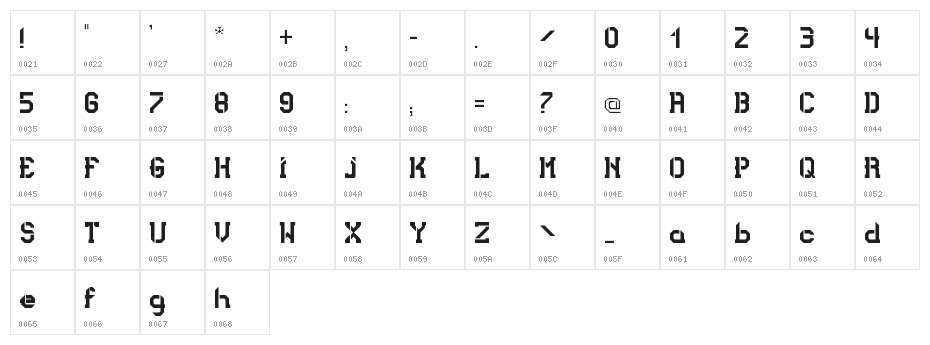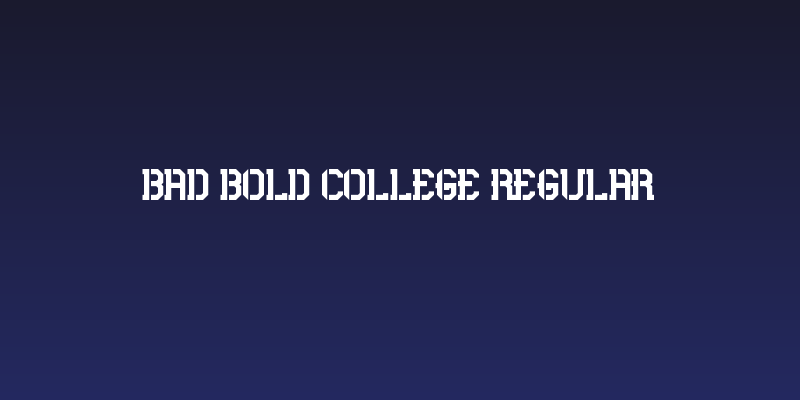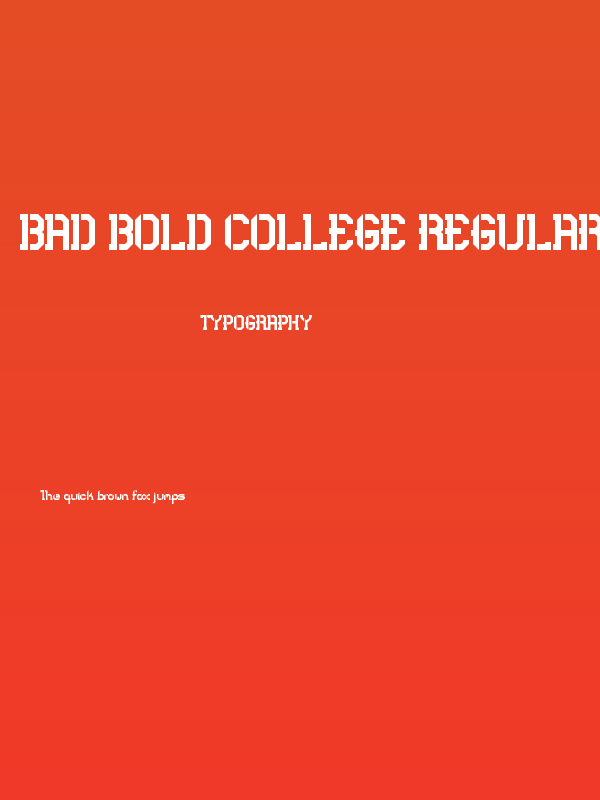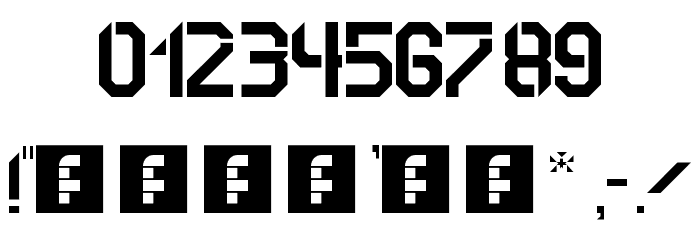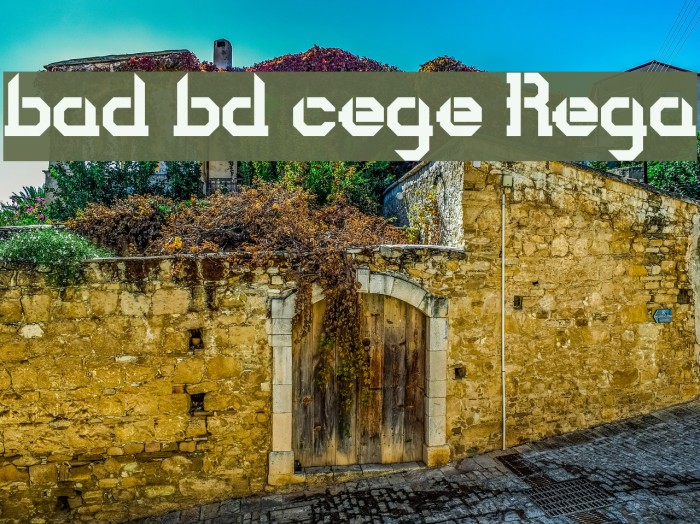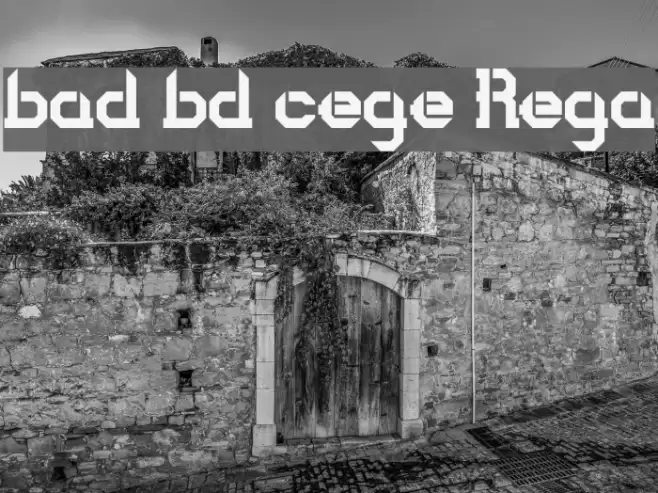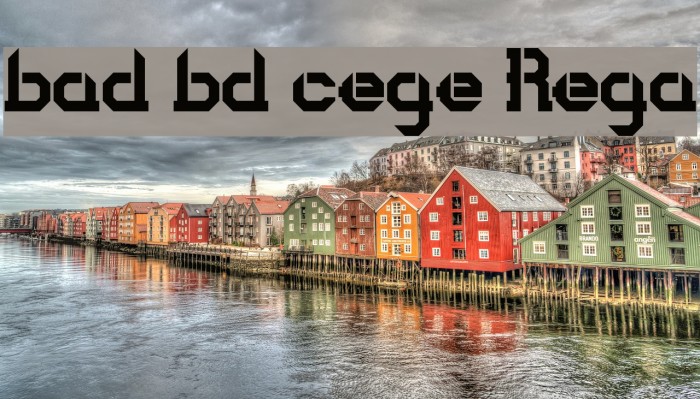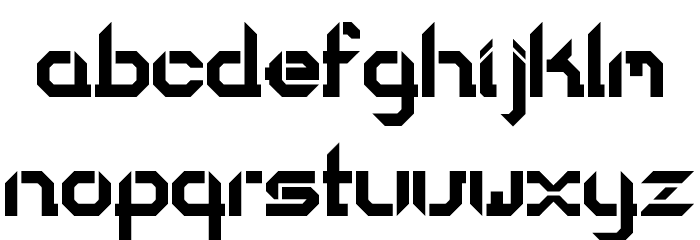
bad bold college Regular Font
bad bold college Regular Description
This font features a bold and geometric design, reminiscent of collegiate or varsity styles. The characters are constructed with sharp angles and straight lines, giving them a blocky and robust appearance. The uppercase and lowercase letters maintain a consistent width, creating a uniform look across the typeface. The numbers and special characters follow the same angular design, ensuring cohesion throughout. This font's strong presence makes it ideal for impactful and attention-grabbing text.